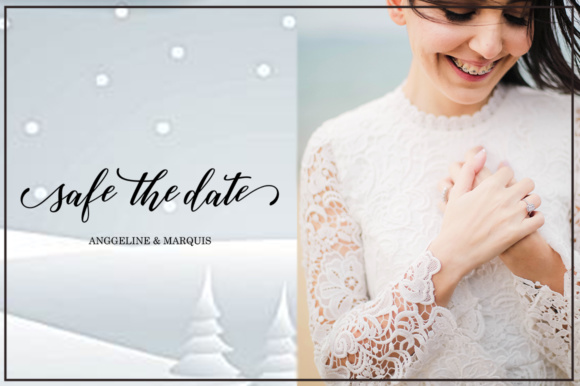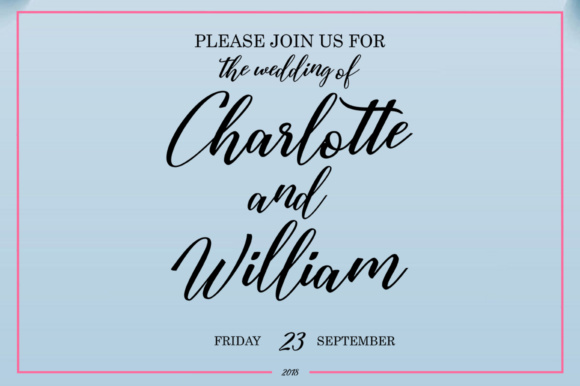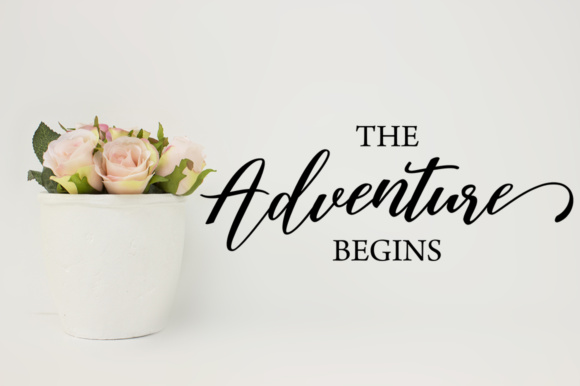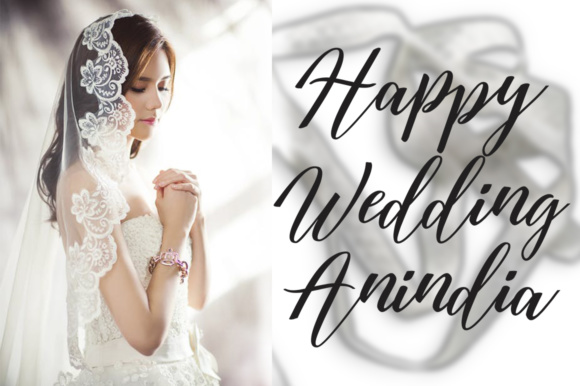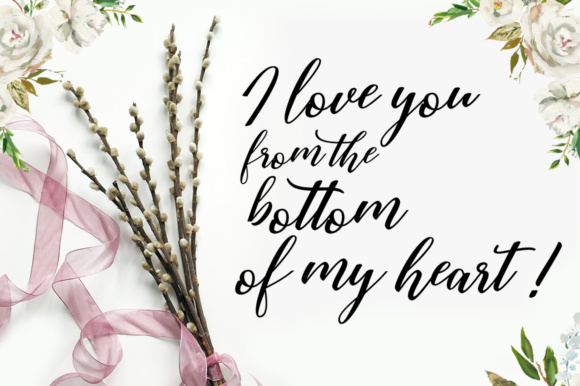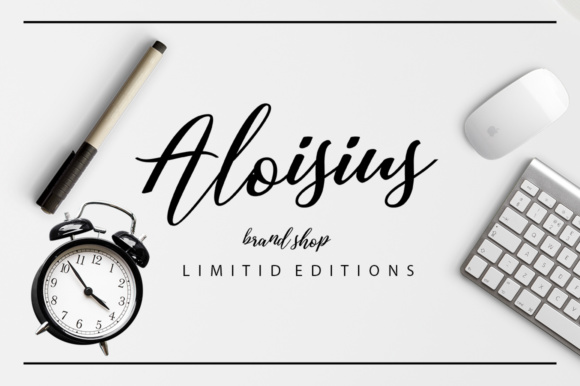
The Perfect Font for a Personal Touch
Have you ever been stuck trying to find the perfect font to convey a heartfelt message or create a beautiful, eye-catching design? I know I have! The struggle is real, especially when it comes to special occasions like weddings or birthdays. But what if I told you there’s a font that can make all the difference? Introducing Austina Script Font, a modern and trendy script font that’s perfect for adding a personal touch to your designs.
Austina Script Font is designed to add a touch of elegance and sophistication to any project. With its irregular baseline and feminine style, it’s ideal for wedding invitations, thank you cards, quotes, and more. Whether you’re a professional designer or a DIY enthusiast, Austina Script Font is a valuable tool in your creative arsenal. Its versatility and unique style make it a must-have for any design project.
Austina Script Font Key Features
- Unique Characteristics: Austina Script Font features beautiful, flowing connections between letters, giving it a personal and artistic touch.
- Legibility: Despite its script nature, Austina Script Font remains highly legible, making it suitable for use in body text and headings.
Austina Script Font Review
Overall, I think Austina Script is a lovely font. It works well for ✨ romantic and elegant designs ✨, and its cursive style makes it perfect for wedding invitations, quotes, and other creative projects. The font is also highly customizable, with a wide range of font sizes, colors, and styles to choose from.
Here are some of the font’s strengths:
- ✨ Elegant and sophisticated look
- ✨ Highly customizable
- ✨ Suitable for a wide range of designs
- ⚠️ The font may not be the best choice for ✨ bold or modern designs
- ⚠️ It may be difficult to read at very small font sizes
Overall, I would give Austina Script a solid 4 out of 5 stars. It’s a beautiful font that works well for many different designs, but it may not be the best choice for every project. With a little creativity and experimentation, you can get some amazing results with this font.
Austina Script Font works well for creating elegant headings, titles, and quotes in Canva designs.
Austina Script Font is ideal for creating custom watermarks, logos, and typography in Adobe Creative Cloud applications.
Austina Script Font is perfect for creating elegant headings, titles, and quotes in presentations and documents.
Austina Script Font is ideal for creating elegant, cursive typography.
Use it for headings, titles, quotes, and watermarks to add a touch of sophistication to your designs.
Pair Austina Script Font with a clean, modern sans-serif font for a balanced and visually appealing look.